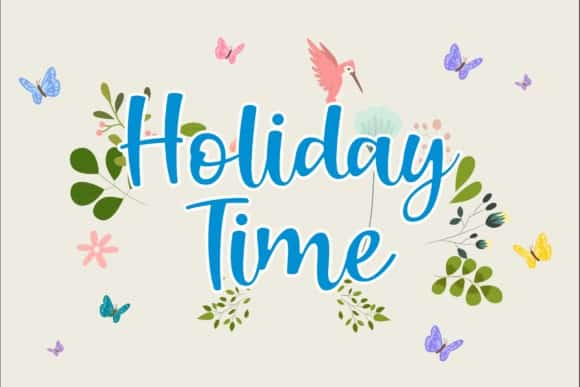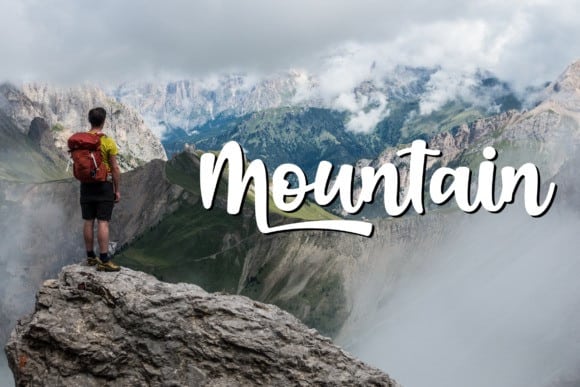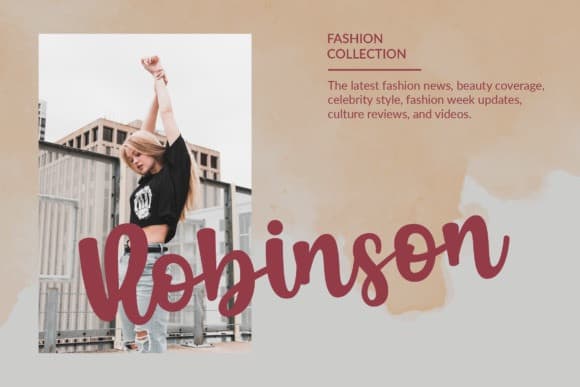
Boendalove Script Font
Boendalove Script Font combines attractive curves with a fresh urban edge; delivering a stylish script handbrush which is guaranteed to add an eye-catching appeal to your designs. Made from font designer named ahweproject. This typeface  is a beautiful and elegant handwritten font. Fall in love with its incredibly versatile style and use it to create gorgeous wedding invitations, beautiful stationary art, eye-catching social media posts, and much more. Fall in love with its incredibly distinct and timeless style and use it to create spectacular designs!